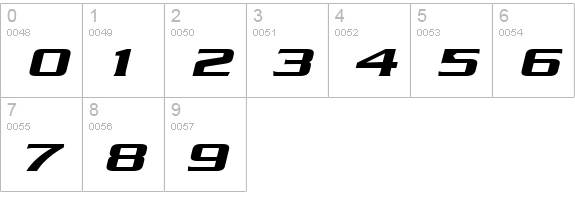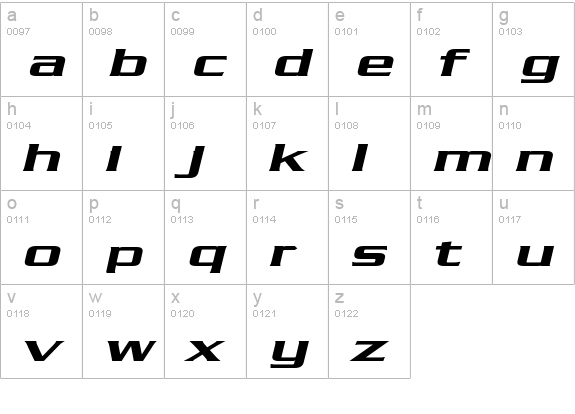
Chaney Extended BoldItalic Font Details
Chaney Extended BoldItalic is a distinctive, extended-width variant in the Chaney typeface family \xE2\x80\x94 well suited to design and typography projects.
Chaney Extended BoldItalic font is a stylish and modern typeface that exudes confidence and sophistication. With its bold and italic design, this font is perfect for making a statement in any design project. The clean lines and sharp edges of Chaney Extended BoldItalic add a touch of elegance and professionalism to your creations. What's even better is that Chaney Extended BoldItalic is available for free download at FontsMarket.com. This means you can easily access this versatile font and use it in your projects without any cost. Whether you're designing a poster, logo, website, or any other creative project, Chaney Extended BoldItalic will surely make a lasting impression. Don't miss out on the opportunity to enhance your designs with this fantastic font - download it for free today at FontsMarket.com!